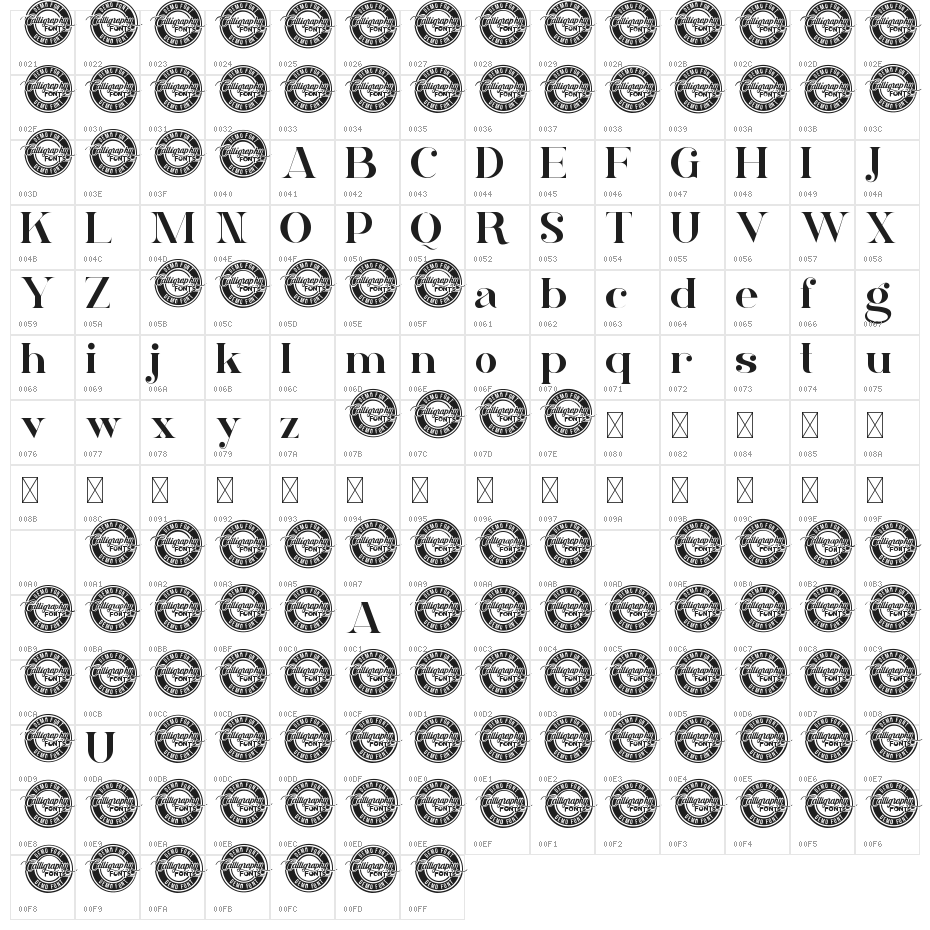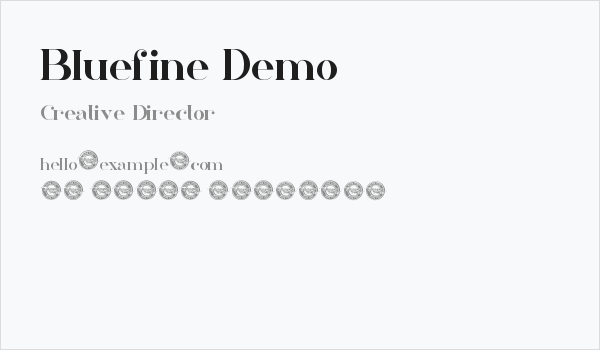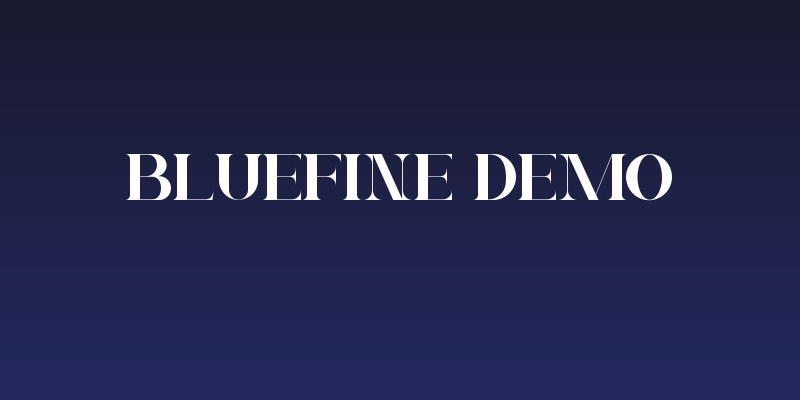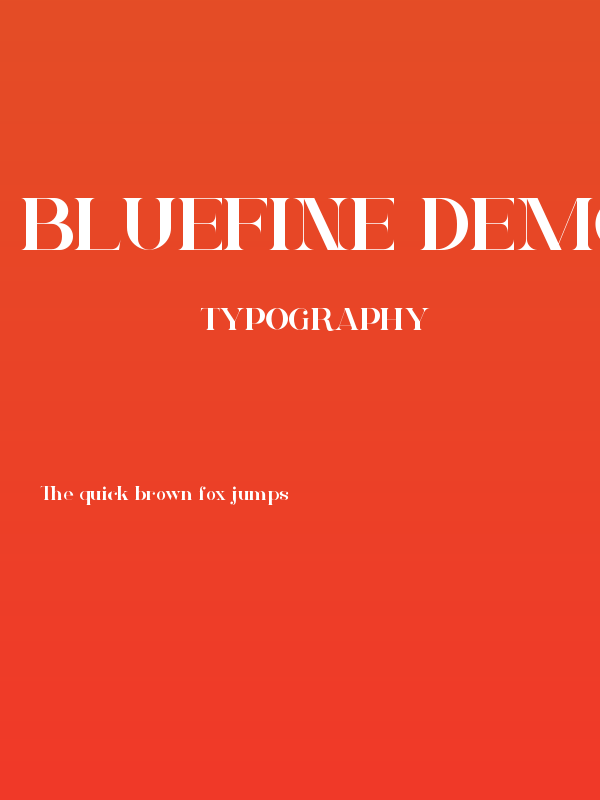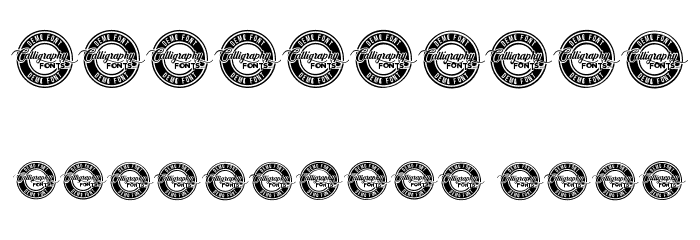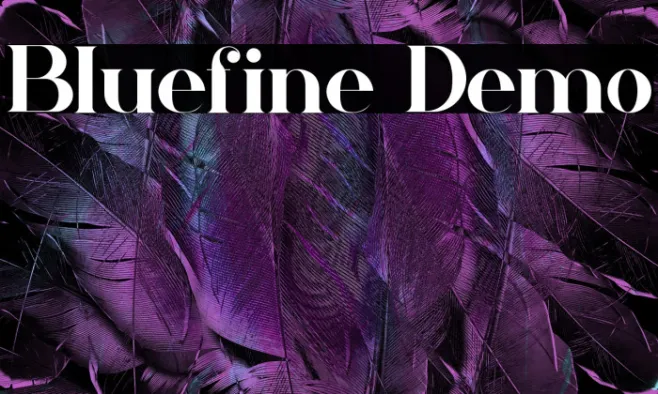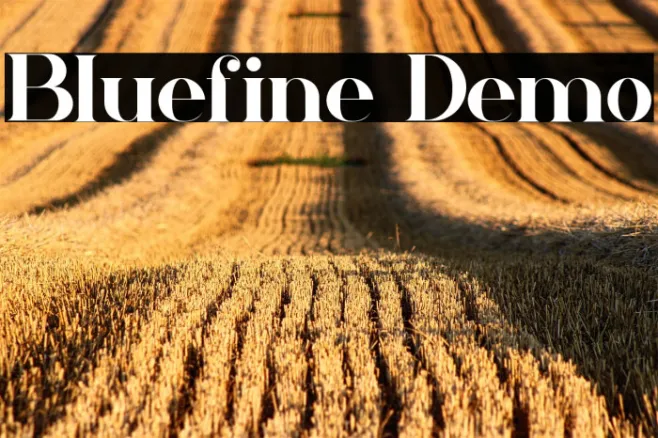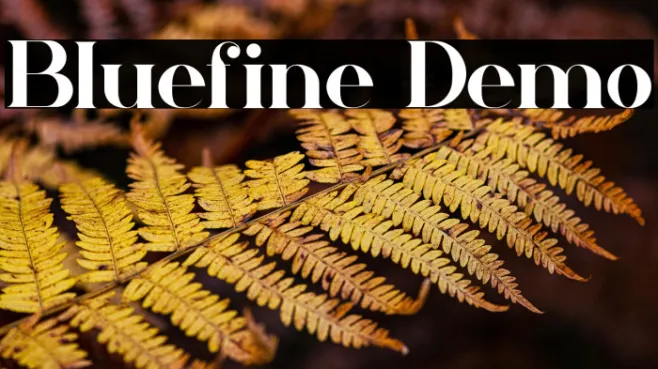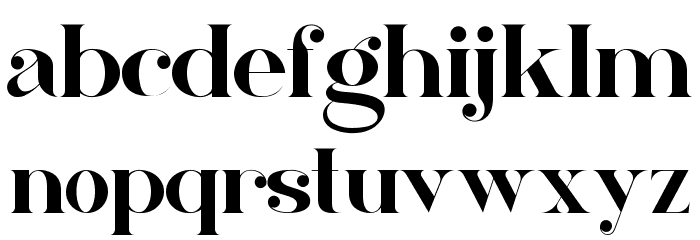
Bluefine Demo Font
Bluefine Demo Description
This font features a bold and elegant design with high contrast between thick and thin strokes, giving it a sophisticated and classic appearance. The uppercase letters are tall and commanding, while the lowercase letters maintain a harmonious balance with their rounded forms and subtle serifs. The overall style is reminiscent of traditional serif fonts but with a modern twist, making it suitable for a variety of design applications. The characters are well-spaced, ensuring readability and a clean look. This font's unique style makes it ideal for projects that require a touch of elegance and refinement.
| Use Case | Logos, Headlines, Editorial Design |
| Proposed Projects | Ideal for luxury branding, editorial design, wedding invitations, and high-end product packaging. |